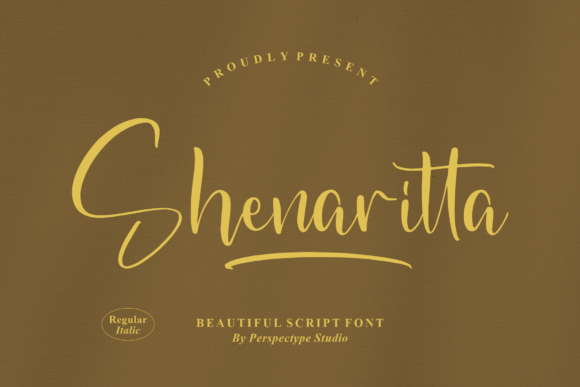
About Shenaritta Font
“Shenaritta – Beautiful Script Font” is a typeface that brings a sense of beauty and elegance, making it suitable for a wide array of creative projects. Whether you’re working on logos, branding projects, homeware designs, product packaging, mugs, quotes, posters, shopping bags, t-shirts, book covers, name cards, invitation cards, greeting cards, labels, photography, watermarks, special events, or any other lovely projects, this font adds a beautiful script taste to enhance the overall aesthetic of your designs.
The beauty and grace of “Shenaritta” make it versatile, allowing you to create visually appealing and distinctive projects. The script style brings a personalized and charming touch, making it an excellent choice for designs that require a handwritten and elegant feel.
The adaptability of “Shenaritta” makes it well-suited for various design contexts, showcasing its versatility as a valuable asset for any creative endeavor. The font’s ability to convey a beautiful script taste enhances its appeal and makes it suitable for a diverse range of design applications.
In summary, “Shenaritta – Beautiful Script Font” is more than just a font; it’s a tool that elevates the beauty of your creative projects. Embrace its elegant script style and let it add a touch of charm to your logos, branding, packaging, and other lovely design ventures. Allow “Shenaritta” to enhance your designs with its beautiful script taste.